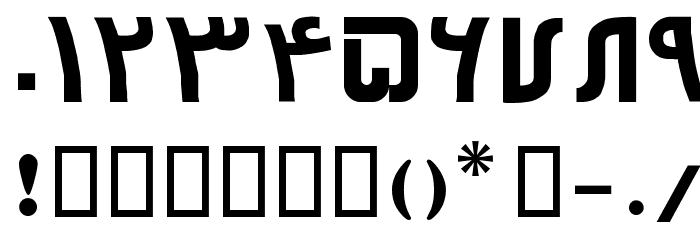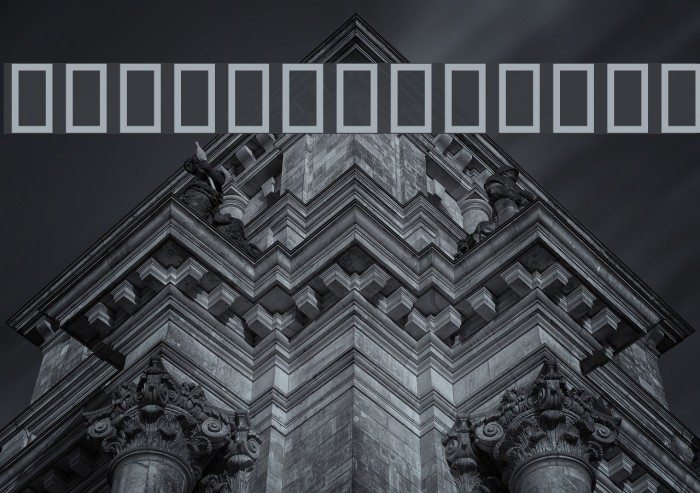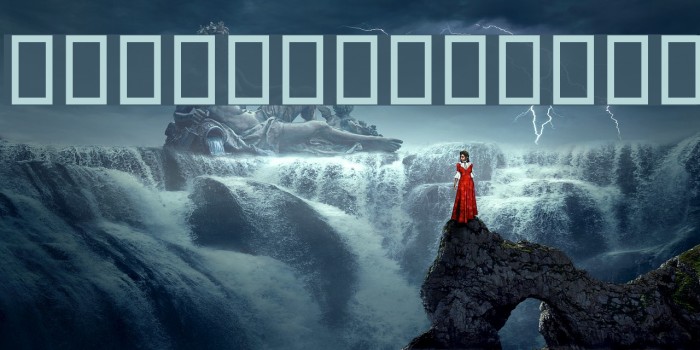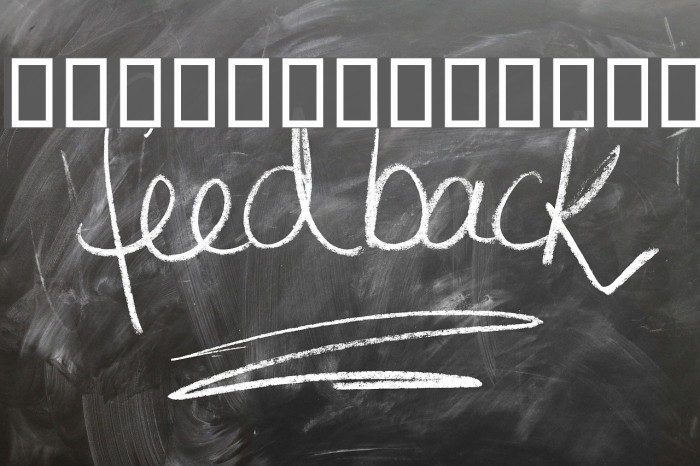
Sorush Font
Sorush Description
This font features a bold and modern style with a strong geometric influence. The characters are designed with a consistent stroke width, giving it a uniform appearance. The letters have a slightly condensed form, which adds to its compact and efficient look. The numerals and special characters maintain the same boldness, ensuring readability across different uses. The overall design is clean and minimalistic, making it suitable for contemporary projects.
| Proposed Projects | Ideal for branding, headlines, posters, and digital media where a strong, modern presence is needed. |